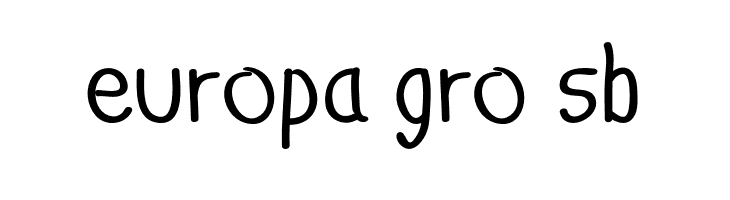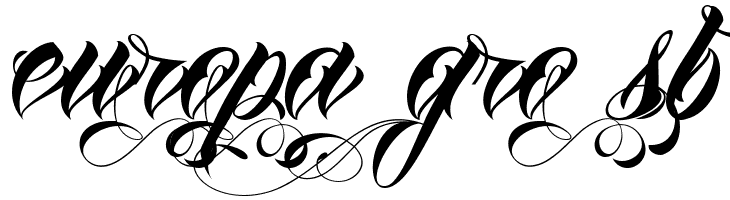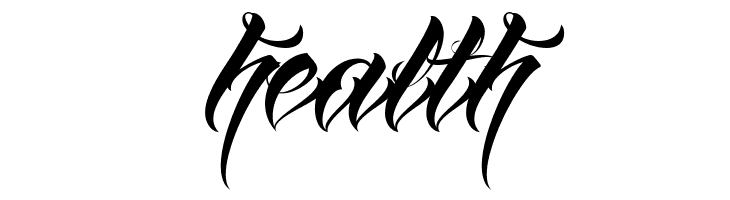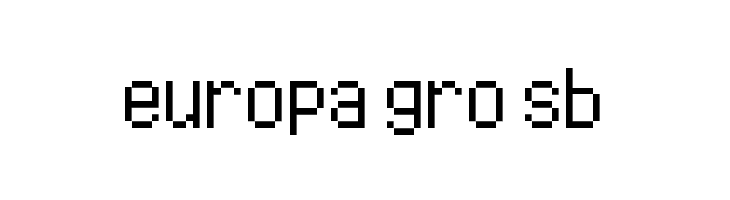
A bold, decorative font with an urban grid texture and strong visual impact.
A bold, distressed stencil font with an urban, industrial vibe.
A bold, graffiti-inspired font with an urban, artistic style.
An elegant, decorative script font with ornate flourishes.
A playful, bubble-patterned font with bold, rounded shapes and circular cutouts.
A bold, brushstroke-style font with a rugged, distressed texture.
A playful, casual handwritten font with irregular strokes and a friendly vibe.
A textured, scratchy font with a rugged, distressed look.
A sleek, modern font with thin, geometric lines and a minimalist aesthetic.
A sleek, modern italic font with elongated, flowing curves and sharp angles.
A pixelated, retro-style font with a blocky, digital appearance.
A modern, geometric sans-serif font with a clean and uniform appearance.
A graceful script font with flowing, cursive strokes and a classic handwritten style.
A bold, textured font with a modern and edgy style.
An elegant, cursive script font with flowing, connected strokes.
A playful, cloud-themed decorative font with bold, outlined letters.
A playful dingbat font with clover icons and dancing silhouettes.
A modern, geometric font with bold, rounded edges and unique character cuts.
A bold, 3D italic font with rugged outlines and dynamic style.
A bold, 3D, hand-drawn font with a rugged, playful style.
A bold, rugged, and condensed font with a distressed appearance.
A bold, condensed, and italicized font with a dynamic and energetic style.
A bold, distressed font with a rugged, grunge-like appearance.
A bold, jagged, and italicized font with a rugged, distressed style.
A bold, jagged, and italicized font with a dynamic and aggressive style.
A bold, distressed font with jagged edges and a dynamic slant.
A bold, rugged font with a distressed, grunge appearance.
A bold, slanted font with sharp, angular edges and an energetic style.
A bold, distressed font with a rugged, hand-crafted appearance.
A playful, 3D cartoon-style font with thick outlines and a hand-drawn look.